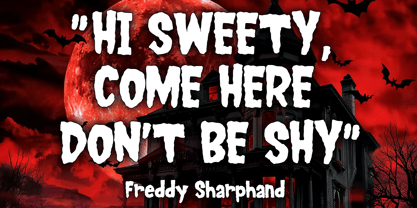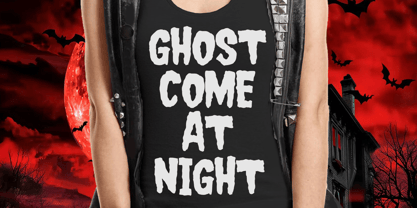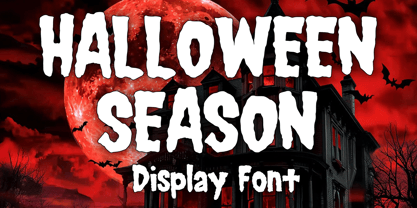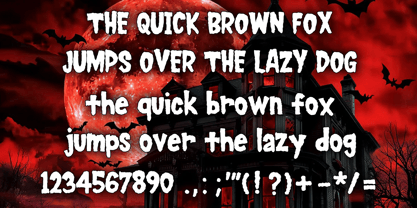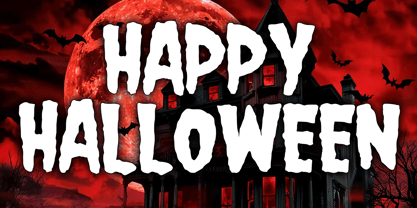
Halloween Season
by Mvmet
Embrace the eerie aura of the Halloween Season font, handcrafted in ink, exuding a trendy, yet vintage charm. Drawing from the cult classics of horror flicks and the electrifying beats of Metal music, this font is the embodiment of spine-chilling aesthetics. Halloween Season is an excellent choice for all your chillingly creative endeavors. Whether it's novel cover designs that make readers' spine tingle, Halloween party invitations that promise a haunt-filled night, post-holiday greeting cards with a wicked twist, or quirky merchandise like t-shirts and stickers, this font is designed to cater to your darkest ambiences. With Halloween Season font, let your posters, banners and all your designs echo the goosebump-inducing allure of horror.